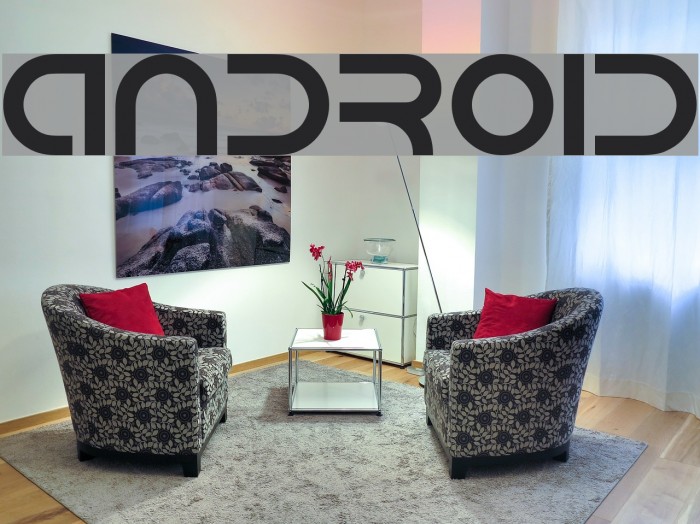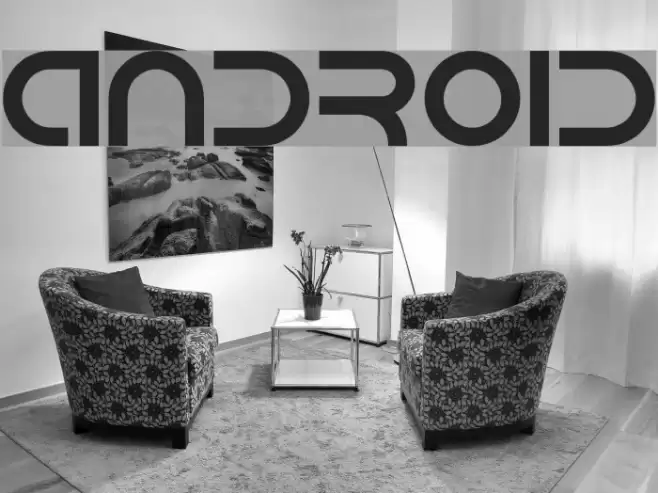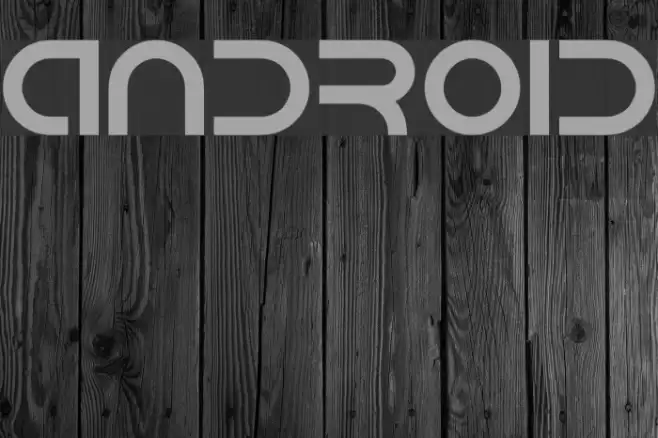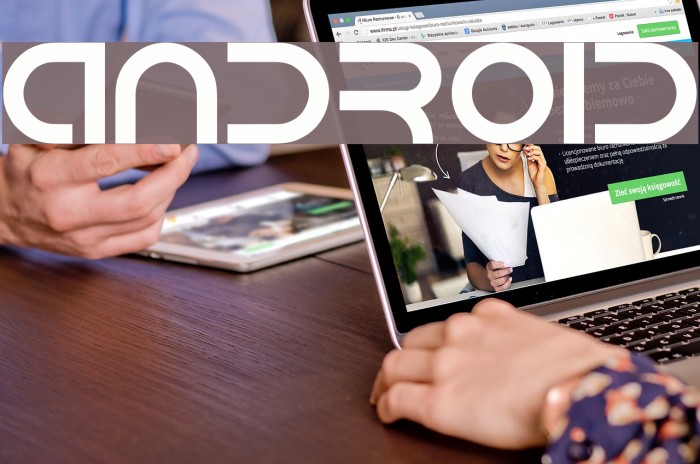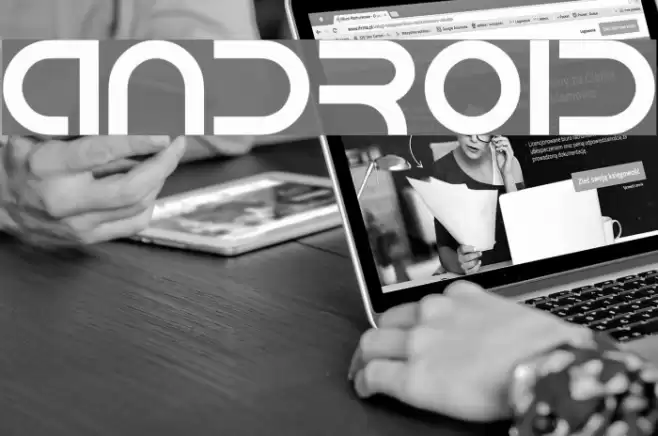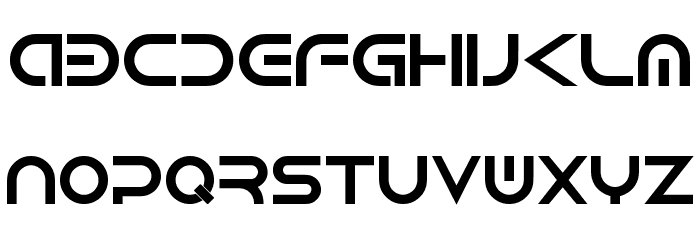
Android Font
Android Description
This font features a futuristic and geometric design, characterized by its bold and uniform stroke width. The letters are constructed with a combination of straight lines and curves, giving it a sleek and modern appearance. The uppercase letters exhibit a consistent height and width, while the lowercase letters maintain a similar style, ensuring a cohesive look. The font's design is reminiscent of digital or technological themes, making it suitable for projects that require a contemporary and innovative touch. The spacing between characters is tight, contributing to its compact and efficient style.
| Use Case | Logos, Headlines |
| Proposed Projects | Ideal for technology branding, sci-fi posters, video game titles, and modern digital interfaces. |